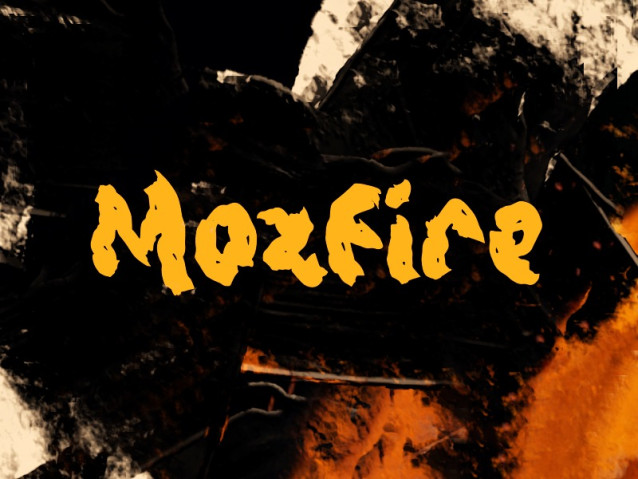
Mozfire Font
Mozfire Font is a simple and modern display font suitable for quotes, logos, headings, titles, and many more. Use it on any of your creative projects, and your designs will become outstanding!